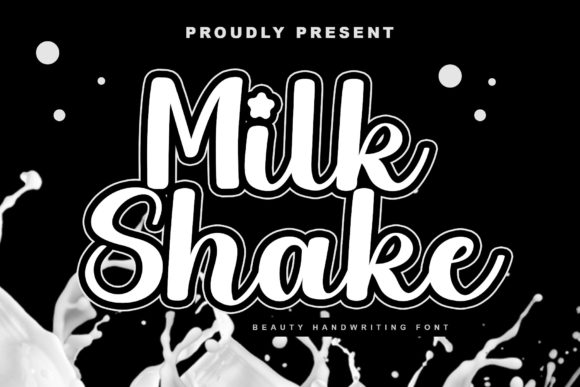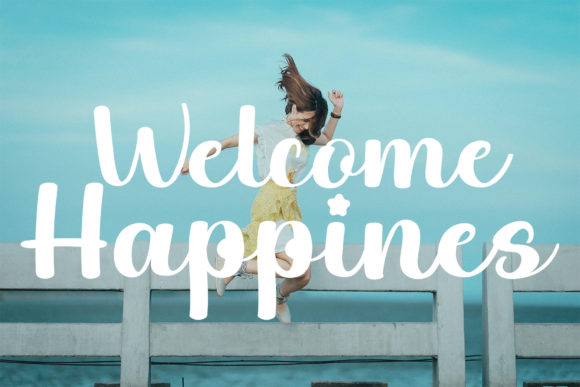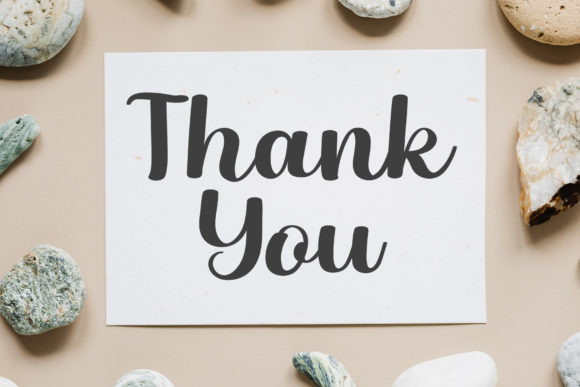
Milk Shake Font
Milk Shake is a beautiful and refined script font. It has a classy, elegant and modern look that can be used for logos, branding, invitations, stationery, wedding designs, social media posts, and much more!